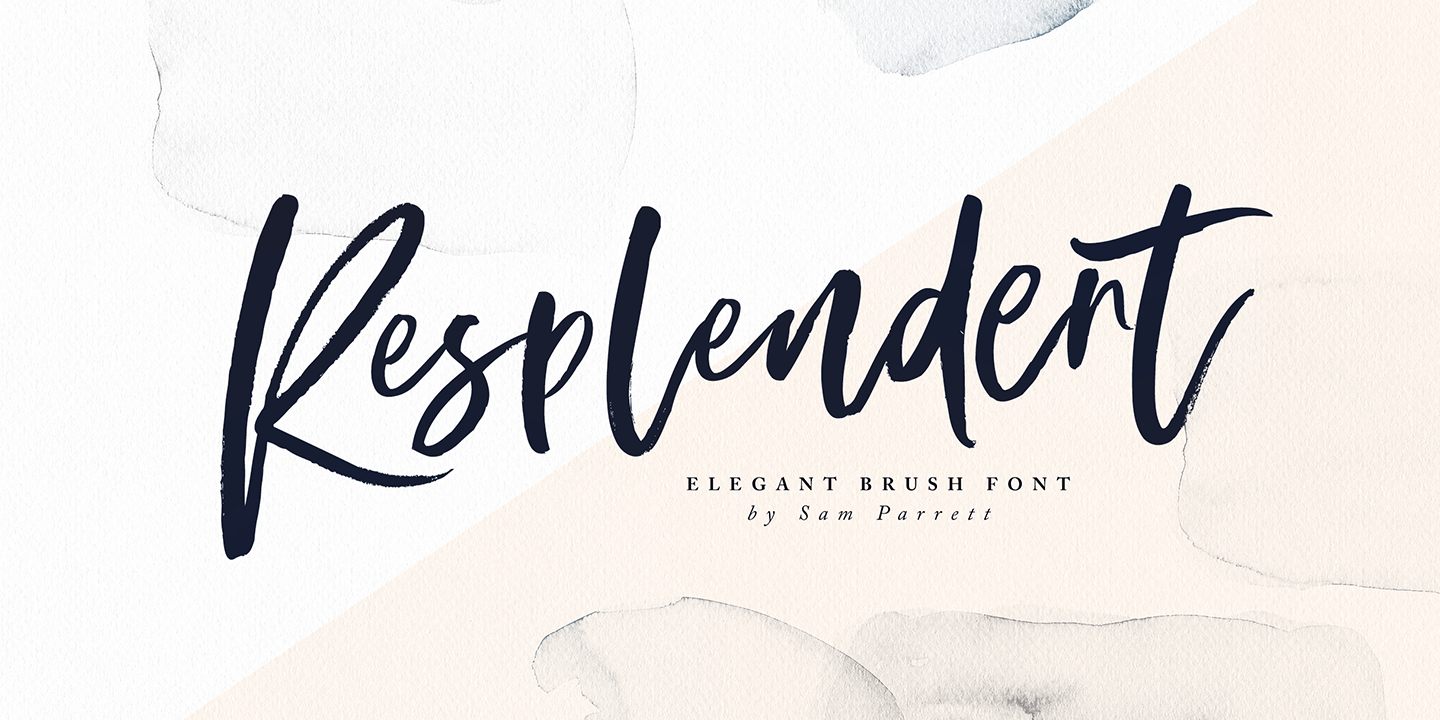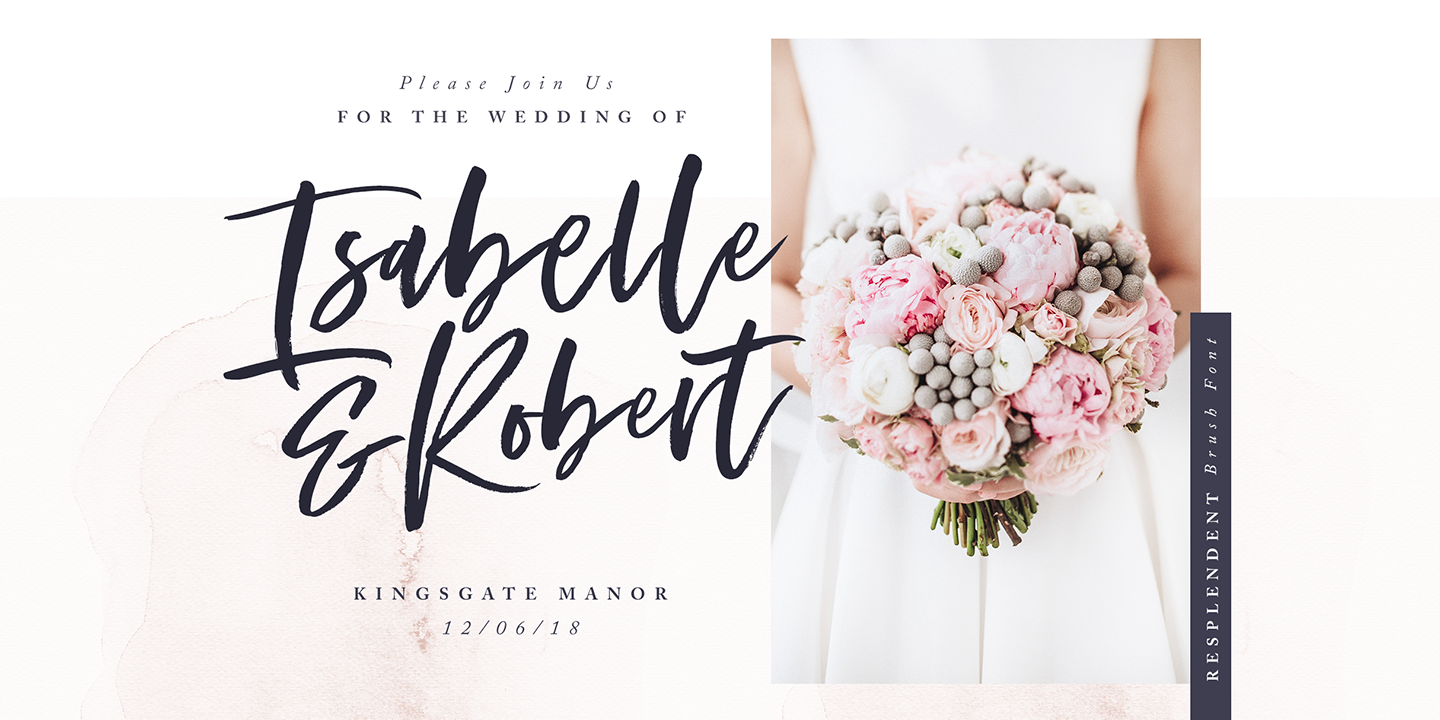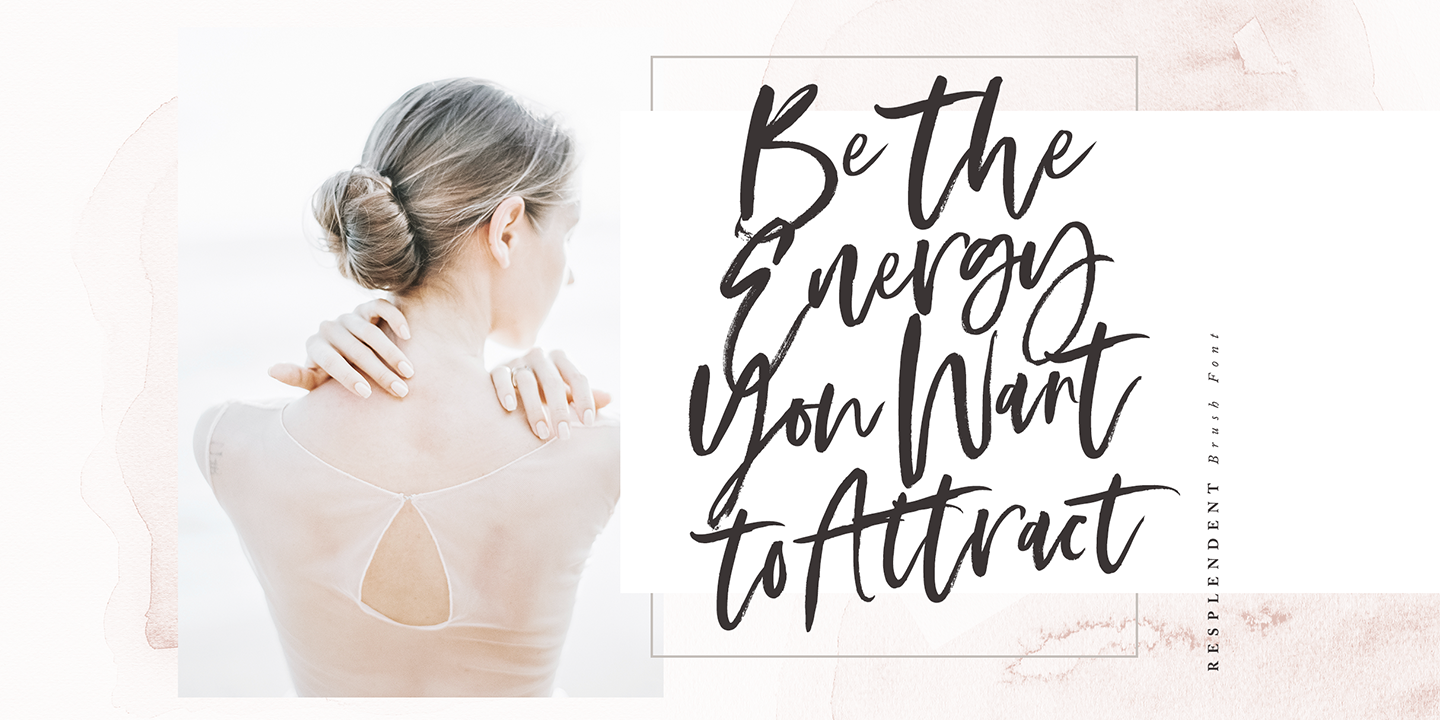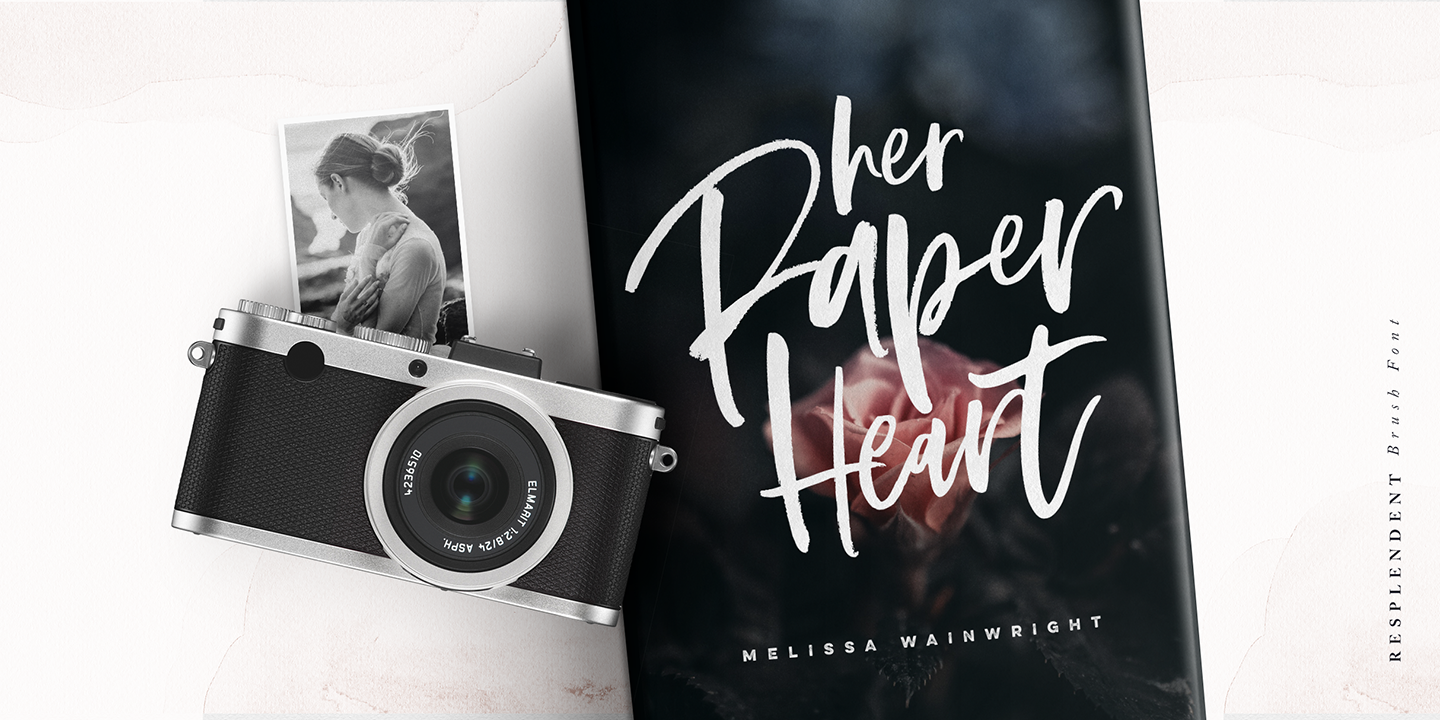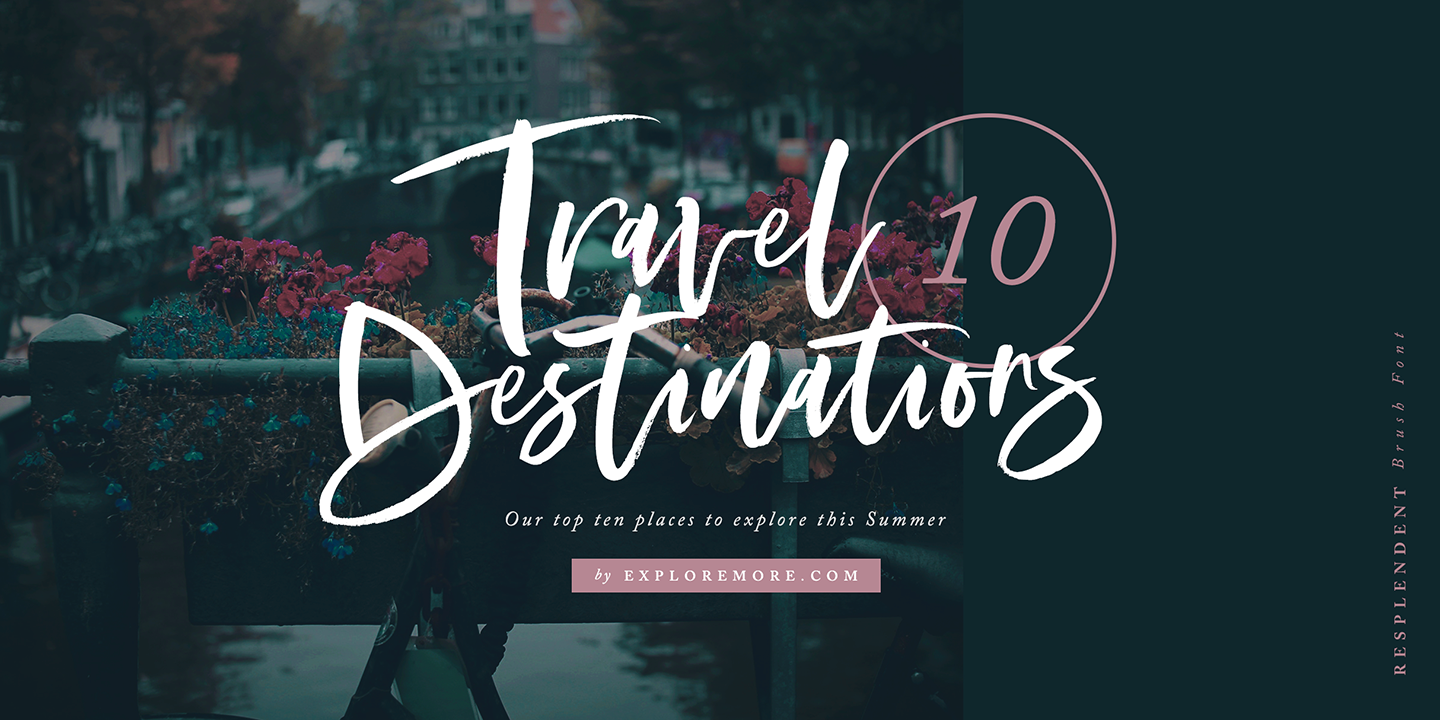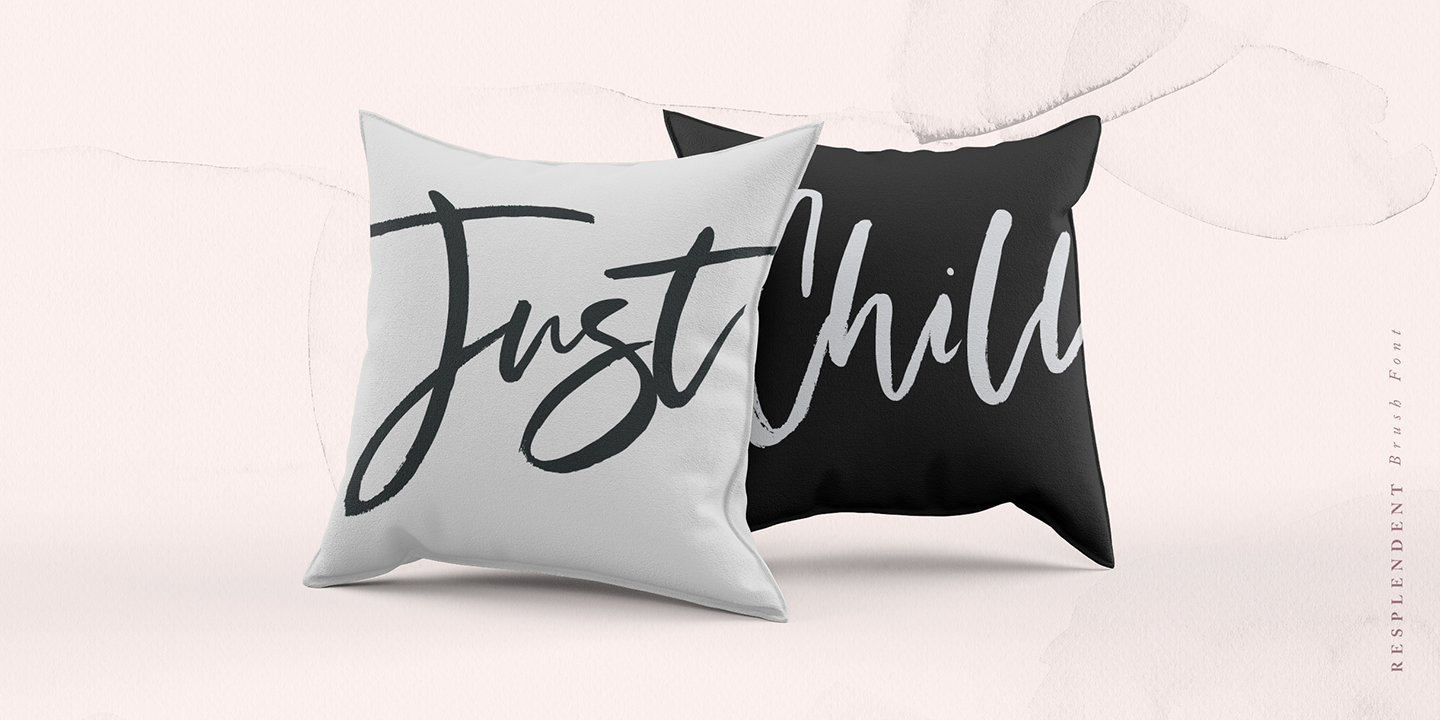
About the Resplendent Font
About Resplendent Font Family Resplendent is a beautiful and free-flowing hand-lettered modern brush script font, Along with a full set of alternate lowercase characters, Resplendent comes in 2 different styles; Brush and Solid – giving you a hugely versatile brush font which can be used in a range of different scenarios, Resplendent Brush maintains a rough hand-painted aesthetic, whereas Resplendent Solid has a totally clean & smooth finish to it’s edges; ideal for vinyl cutters such as Cricut and Silhouette Cameo, or simply for any project which needs a silky smooth style
Both styles of the font include an ‘Alt’ version, this has replaced all of the lowercase characters with a completely new set, If you wanted to avoid letters looking the same each time to recreate custom lettering, or try a different word shape, simply switch to the ‘Alt’ fonts for an additional layout option